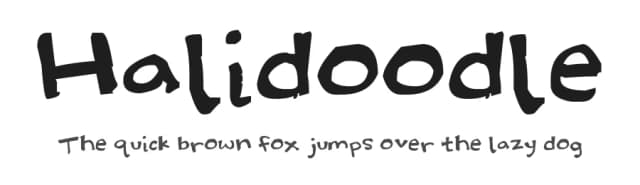
About H6 Font
H6 is a script & handwritten font designed by Hali Vanderburg. It includes 128 glyphs, a regular weight, TTF (TrueType) format, and 107 languages. H6 is free to download; check the license details on this page before commercial use. Script & handwritten fonts like H6 work best for wedding invitations, greeting cards, signatures, and elegant branding.
H6 Font is a script font that shines as a display or heading face. Pair it with a clean sans-serif or serif font for body text β the contrast creates a clear hierarchy while the two styles stay balanced and easy to read.
H6 Font
H6 Font is a script handwritten typeface by Hali Vanderburg, ideal for logos, invitations, branding, and creative projects.